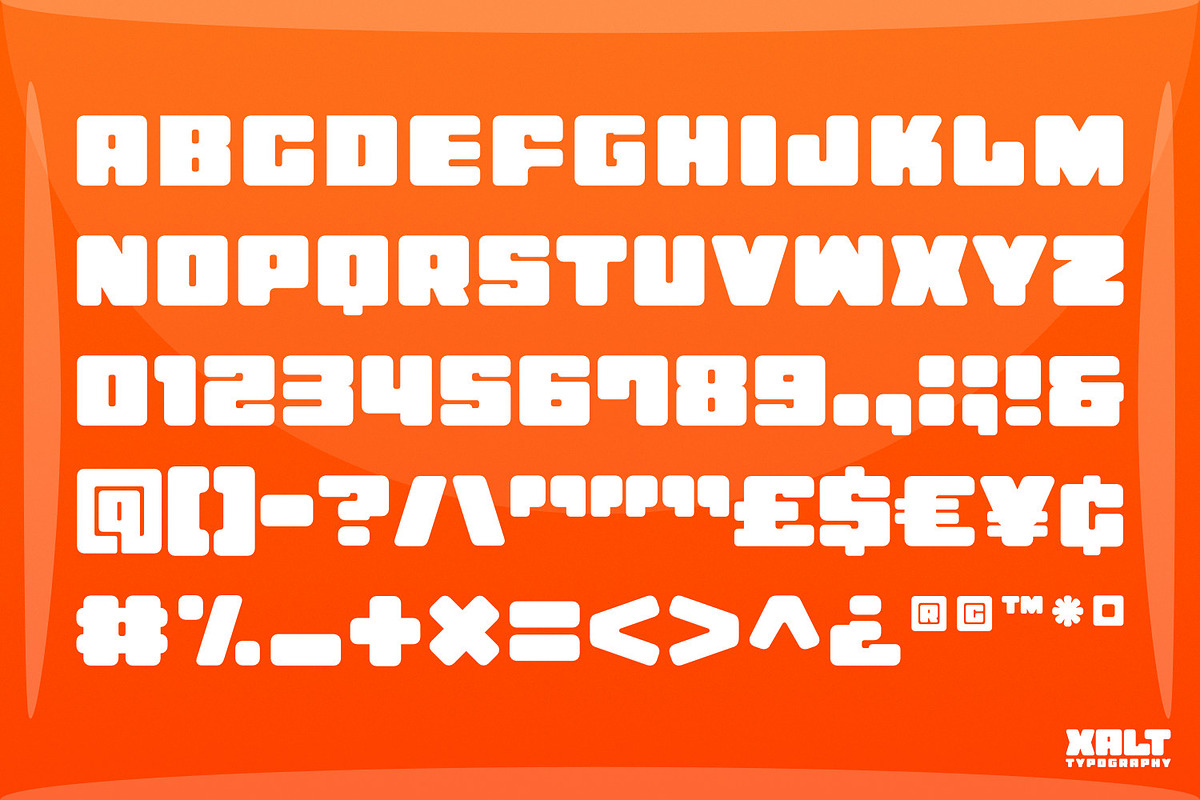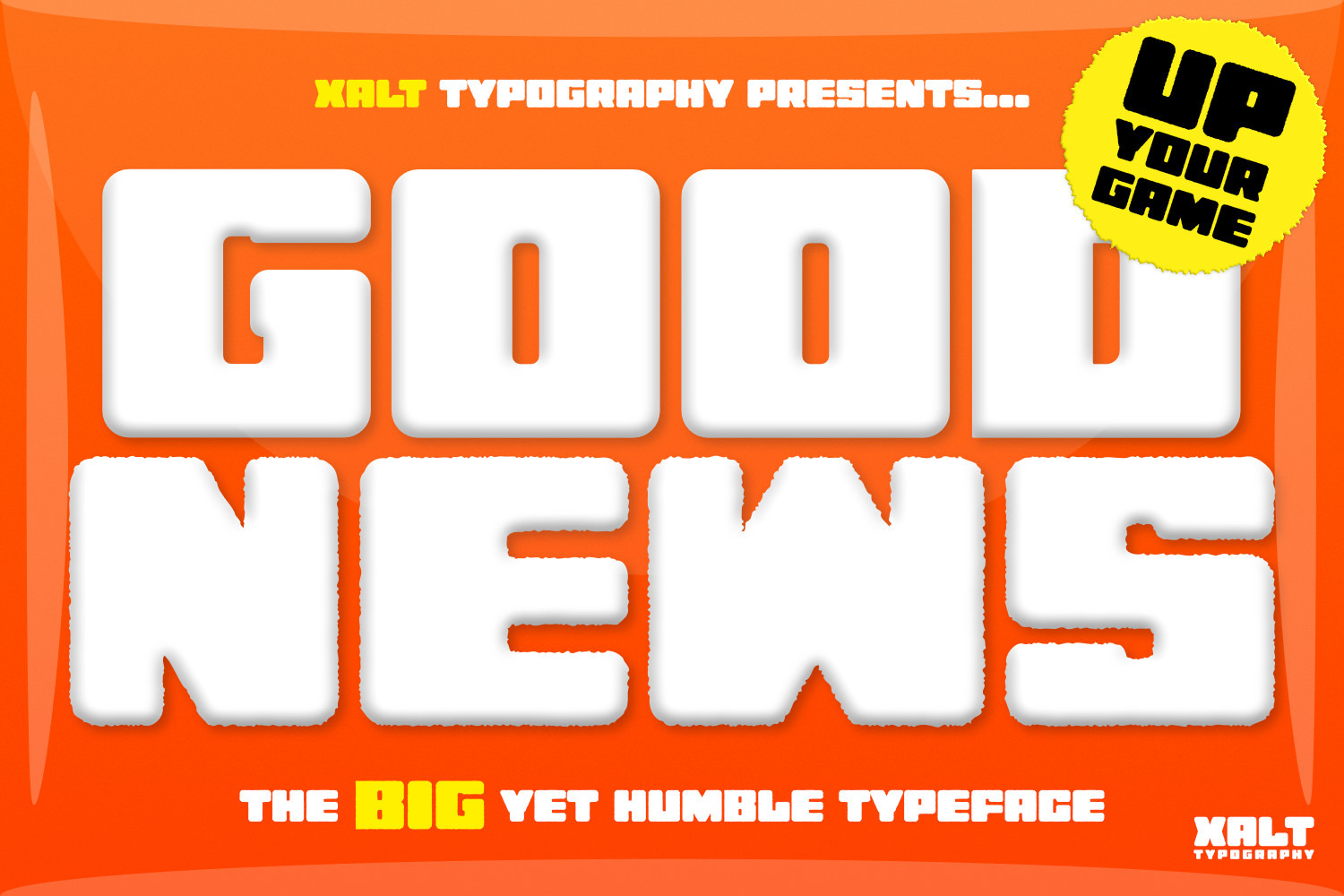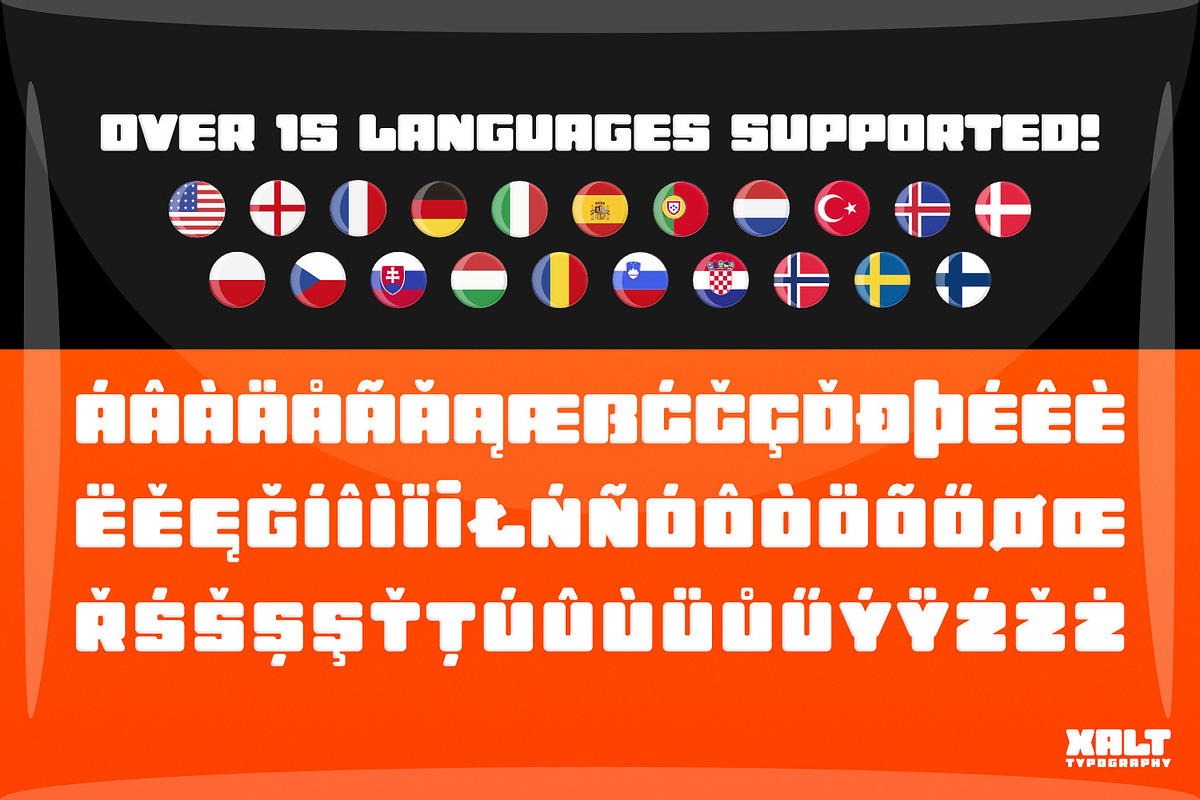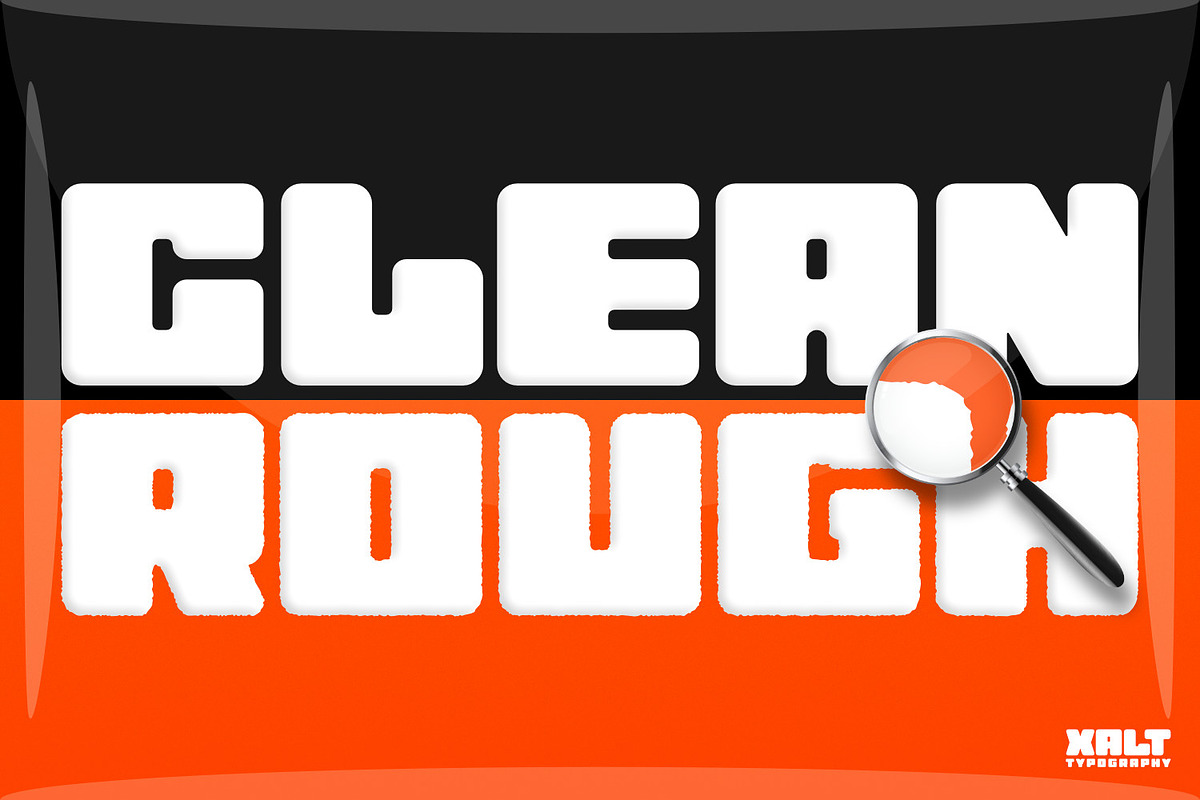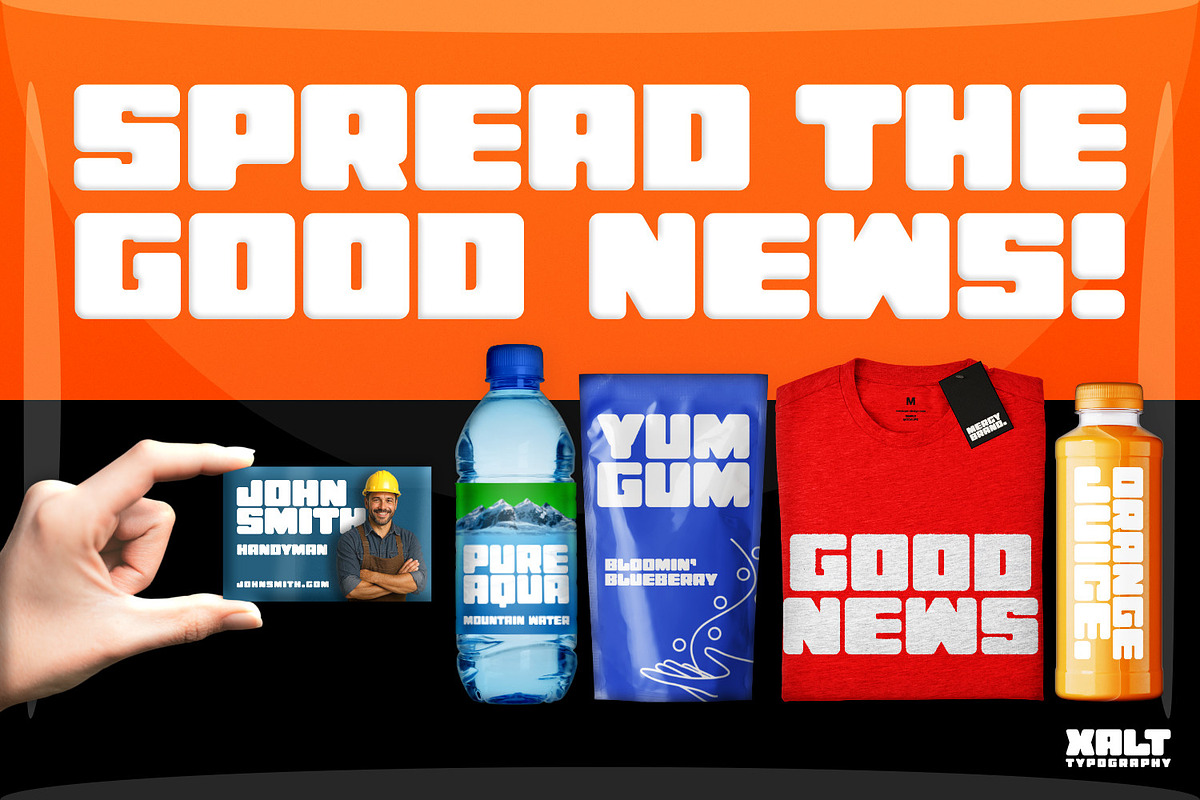
GOOD NEWS – Big Fat Display Font
GOOD NEWS is your new go-to typeface for BIG, bold messages!
It’s confident, yet humble. Impactful, yet gentle. Big, yet friendly.
Available in two powerful styles (Regular + Rough) for ultimate versatility
Over 200 carefully crafted glyphs per style (400+ total), including useful alternates
Supports 15+ languages for wide-reaching use
Designed with precision – consistent spacing, clean curves, and a fresh modern feel
Looks stunning at any size – perfect for attention-grabbing titles, sharp logos, or clean body text
Built to look amazing, whatever you type!
GOOD NEWS is an excellent choice for T-shirt designs, merchandise graphics, logos, posters & print, social media visuals, promotional materials, publications, greeting cards, crafts and more!